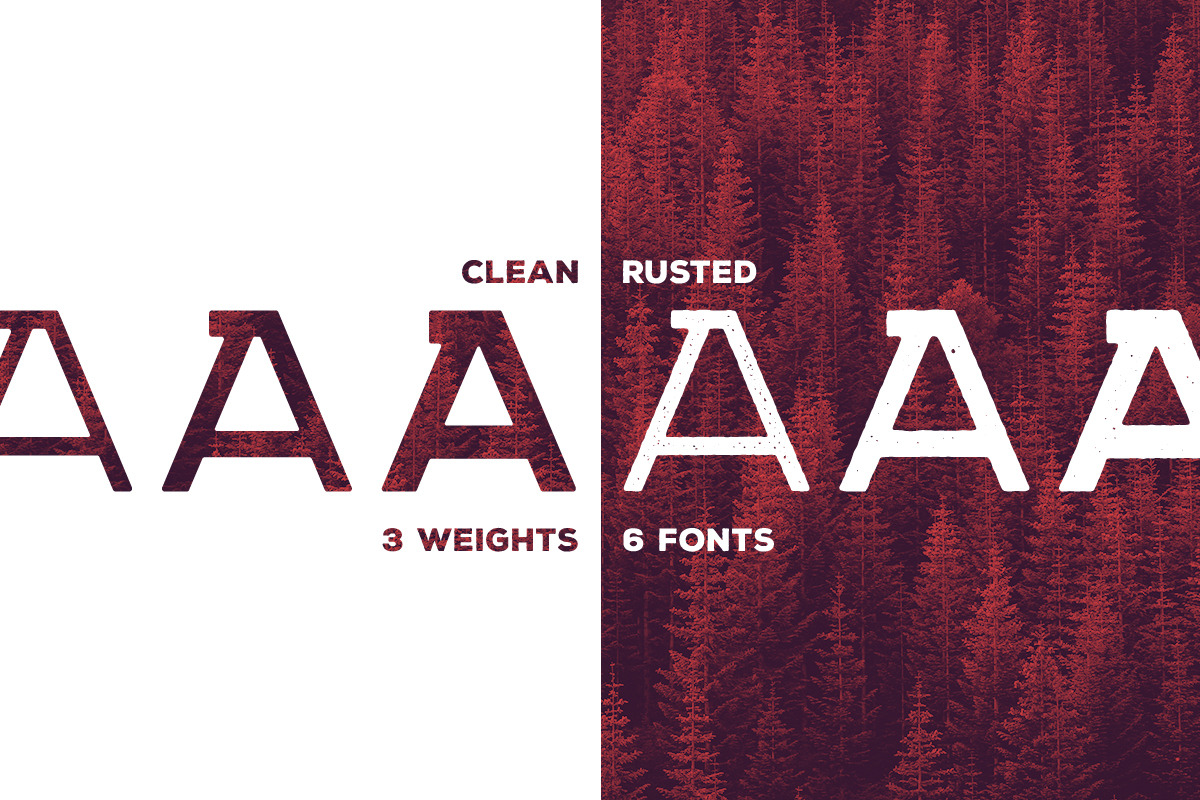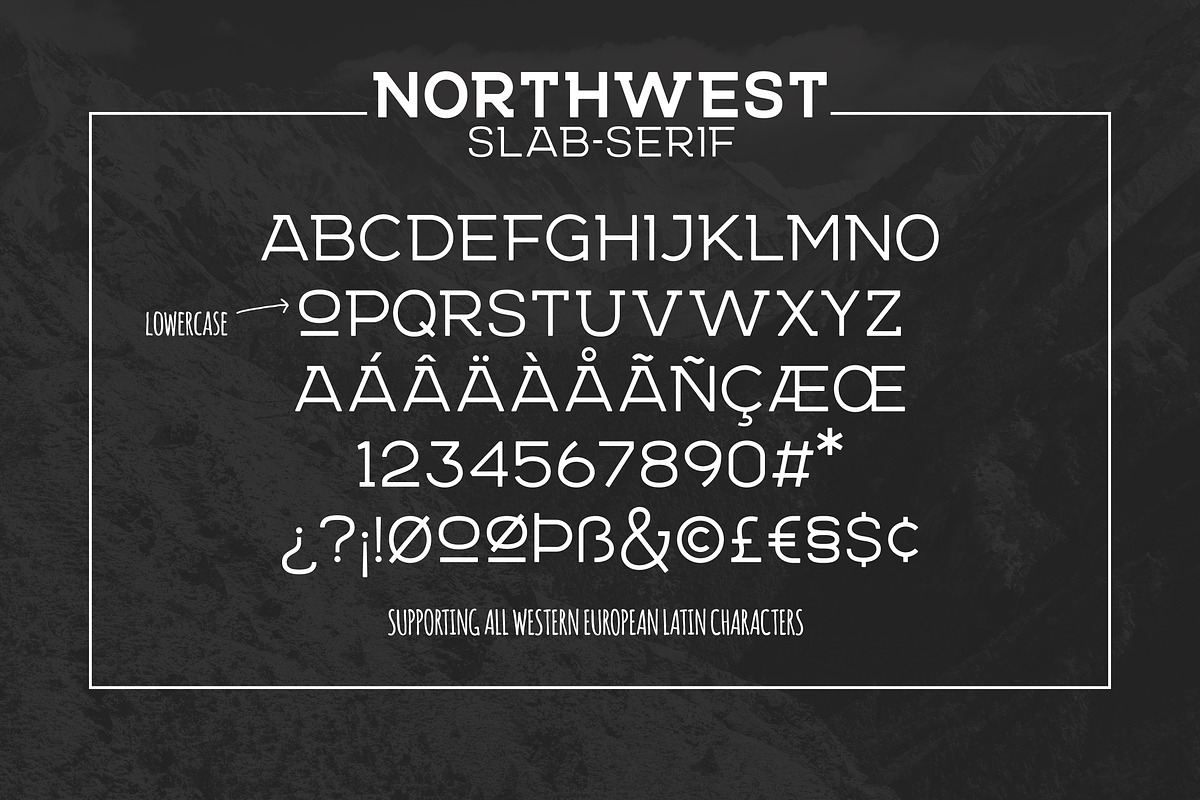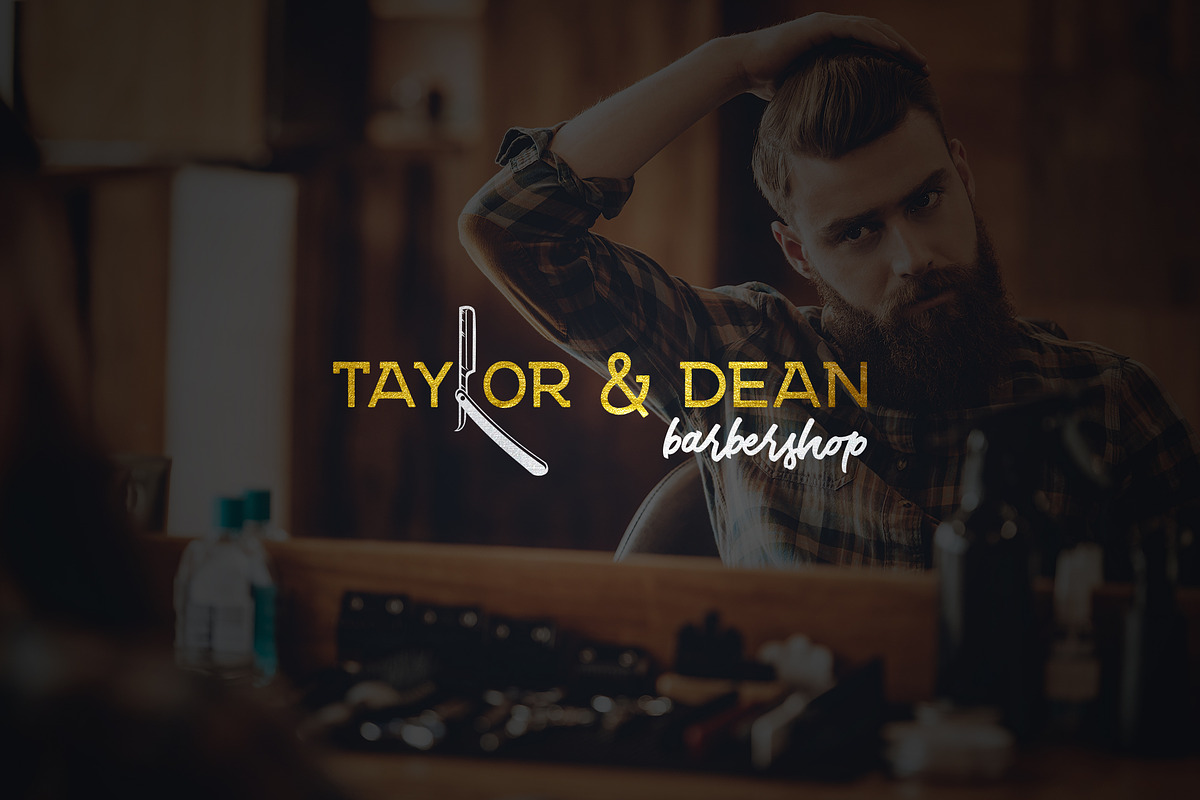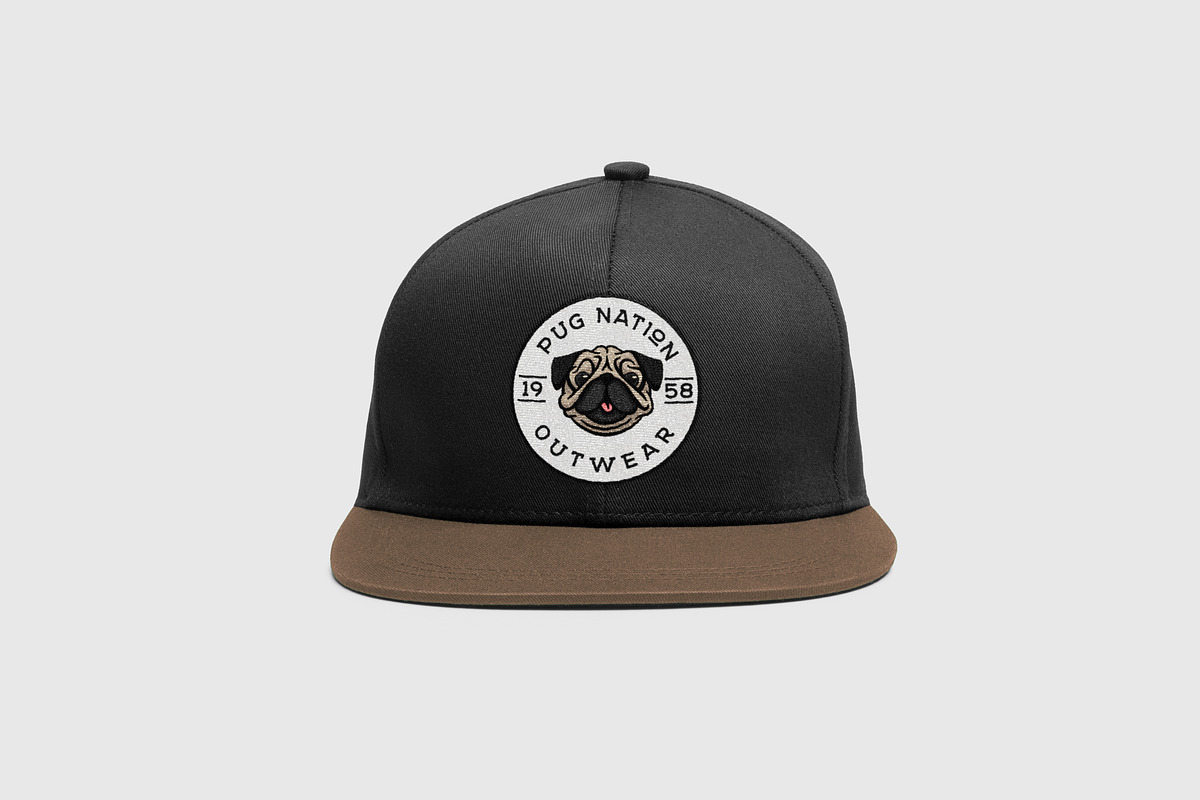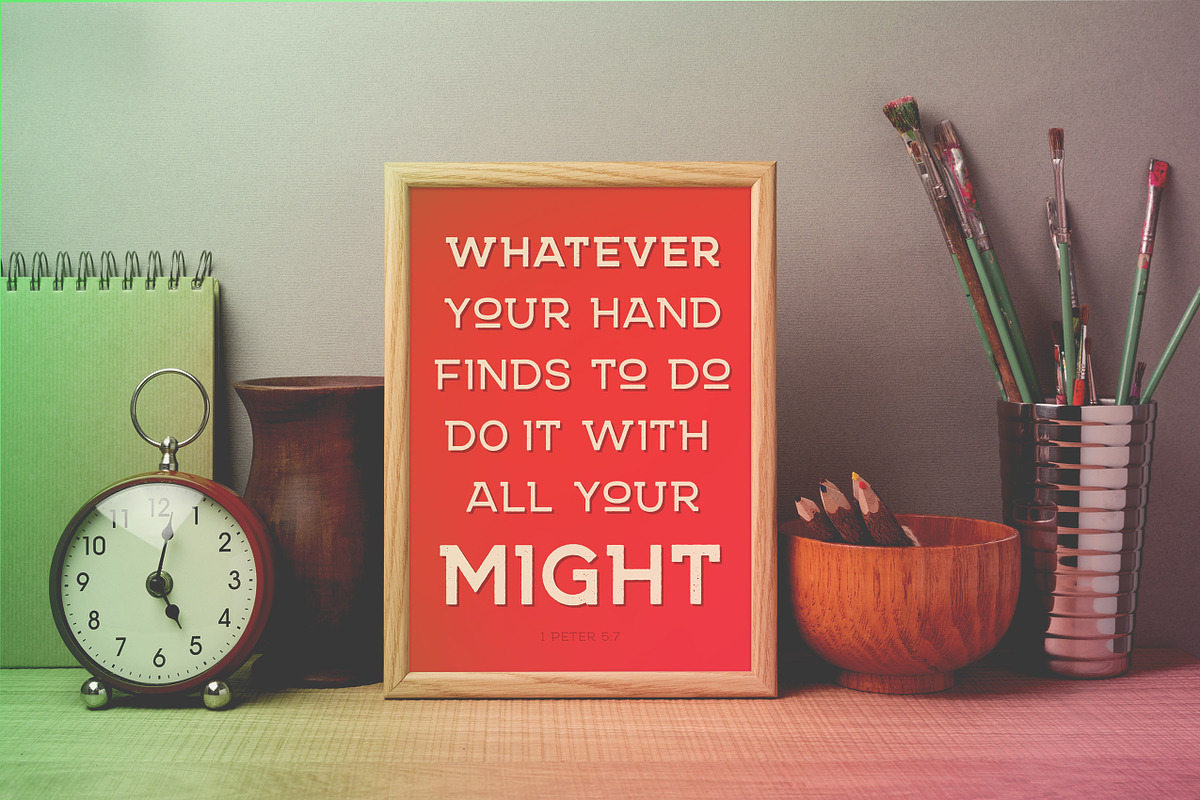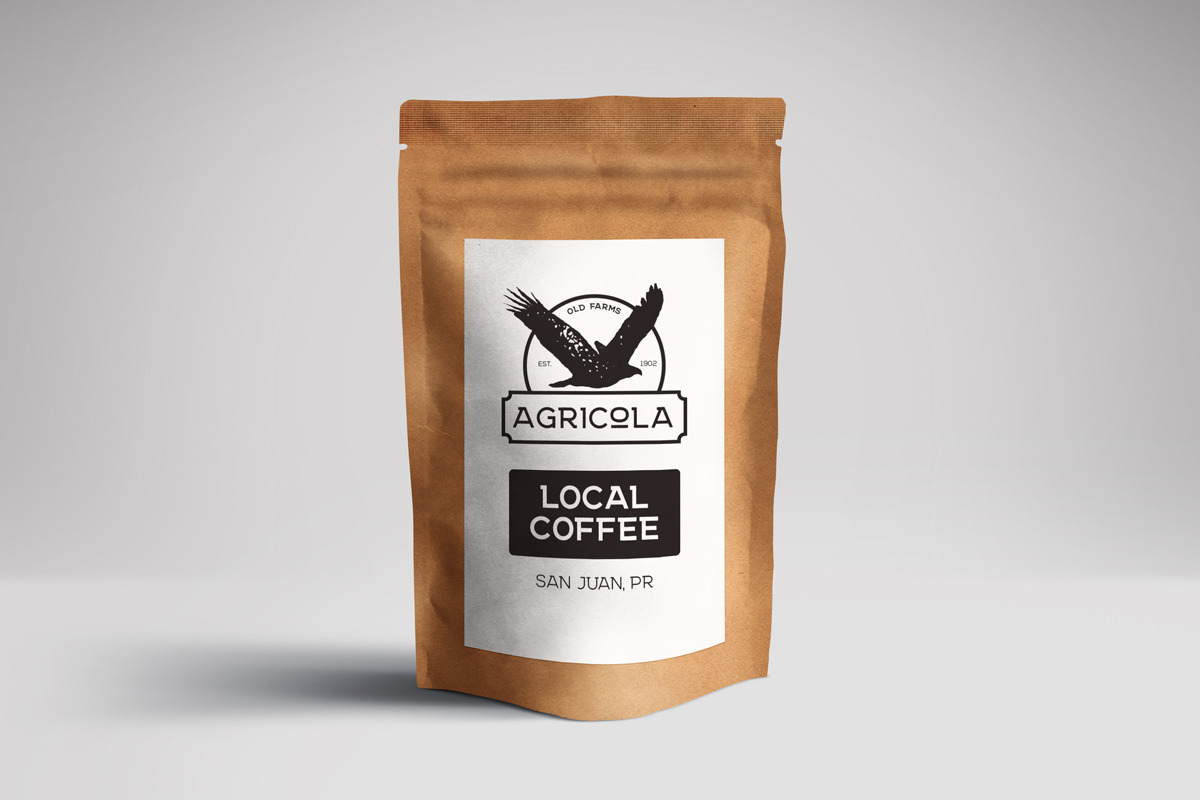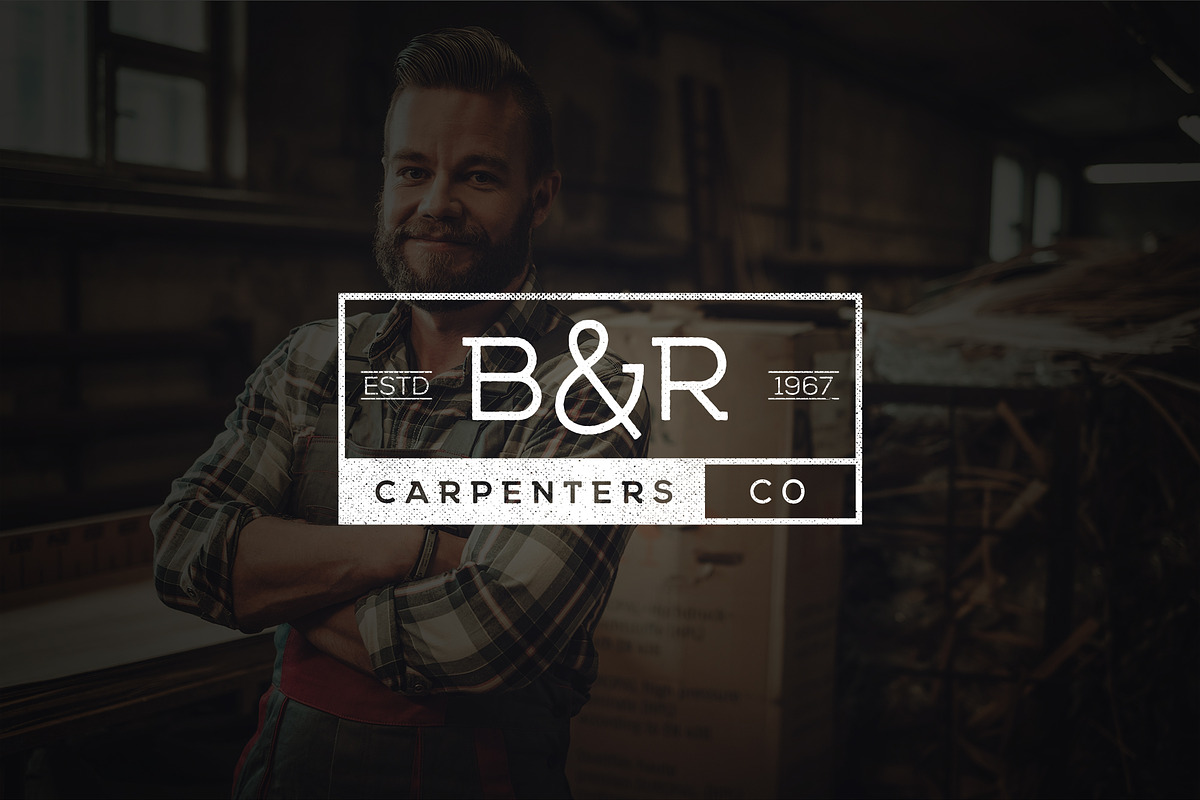
NORTHWEST - RETRO/MODERN FONT-FAMILY
NORTHWEST - RETRO/MODERN FONT-FAMILY by TIRADO SUPPLY CO is a font selected for branding, posters, packaging, typography.
NORTHWEST - RETRO/MODERN FONT-FAMILY by TIRADO SUPPLY CO fits naturally into Branding, posters, packaging, typography.